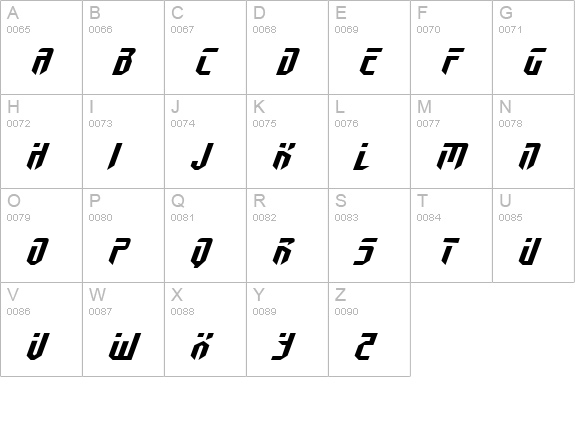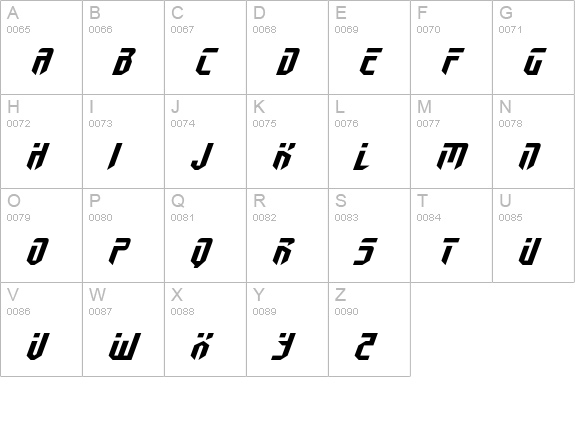
Fedyral Expanded Italic is a distinctive, extended-width, italic variant in the Fedyral typeface family \xE2\x80\x94 well suited to design and typography projects.
Fedyral Expanded Italic is a sleek and modern font that exudes sophistication and elegance. Its italic design adds a touch of flair and style to any project. The expanded letterforms give this font a unique and eye-catching look, making it perfect for headlines, titles, and branding materials. What makes Fedyral Expanded Italic even more appealing is that it is available for free download at FontsMarket.com. This means you can easily access this stunning font and use it in your designs without any cost. Whether you're working on a professional project or a personal creation, Fedyral Expanded Italic is sure to make a statement and elevate your work to the next level. Download this font today and enhance your design projects with its bold and distinctive style.